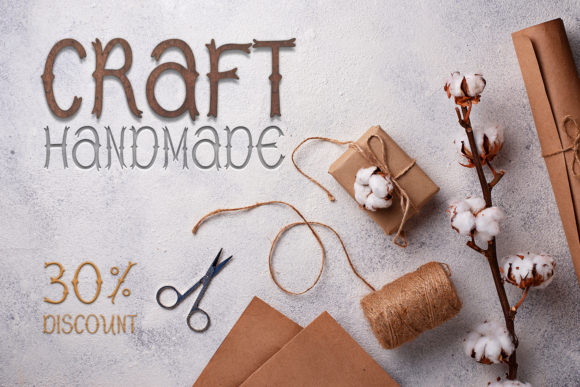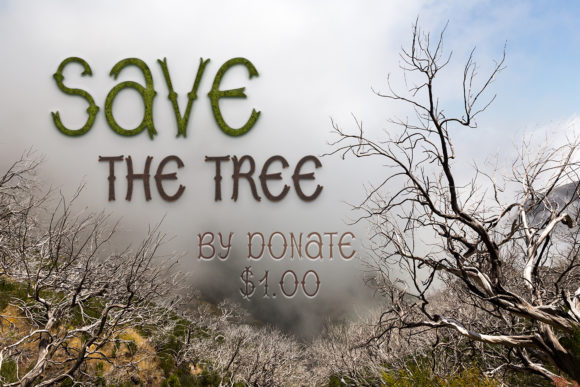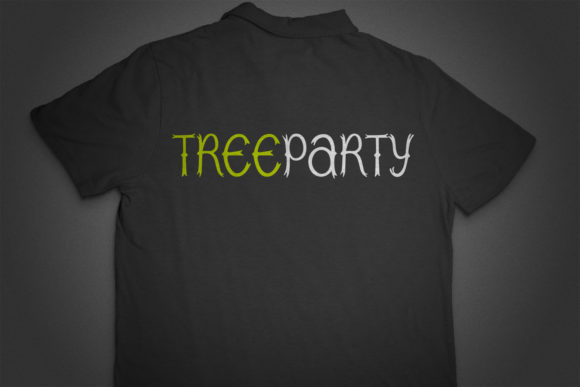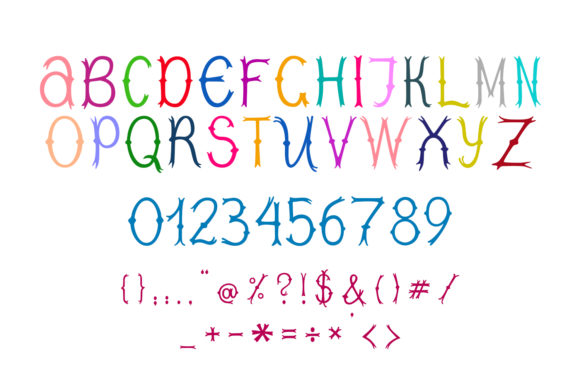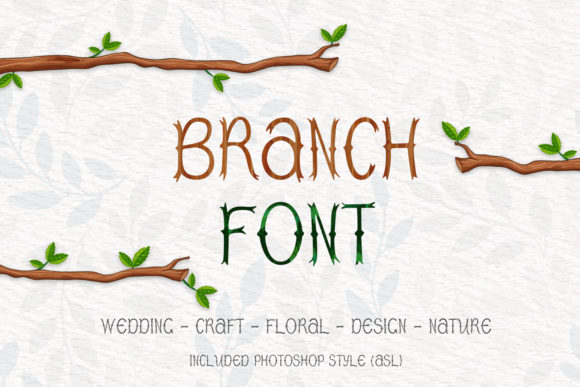
Introducing Branch Font: A Fun Display Font Inspired by Nature
Are you looking for a font that captures the essence of the great outdoors? Look no further than Branch Font, a fun and playful display font that’s perfect for any project that needs a touch of natural charm. Built upon the theme of wood, Branch Font is a unique and eye-catching typeface that’s sure to make your designs stand out.
The Inspiration Behind Branch Font
Branch Font is a font that’s deeply rooted in nature. Its design is inspired by the rustic charm of wooden branches, with each letter carefully crafted to evoke the feeling of a tree’s twisted limbs. The result is a font that’s both whimsical and earthy, with a character that’s perfect for any project that needs a touch of the great outdoors.
What Makes Branch Font So Versatile?
One of the things that sets Branch Font apart is its versatility. While it’s certainly well-suited to projects that are directly related to nature, such as environmental campaigns or outdoor gear branding, it’s also a great choice for any design that needs a touch of playfulness and whimsy. Whether you’re working on a logo, a poster, or a website, Branch Font is a great choice for adding a bit of personality to your design.
Key Features of Branch Font
- Unique and eye-catching design: Branch Font’s wooden branch-inspired design is unlike anything you’ve seen before. Its twisted, curved lines are sure to grab attention and add a touch of personality to your designs.
- Highly legible: Despite its unique design, Branch Font is highly legible, even at small sizes. This makes it a great choice for use in a variety of applications, from logos and headings to body text.
- Support for multiple languages: Branch Font supports multiple languages, making it a great choice for designers who work with clients from around the world.
Use Cases for Branch Font
So what kinds of projects is Branch Font best suited to? Here are a few ideas to get you started:
- Environmental campaigns: Branch Font’s natural, earthy vibe makes it a great choice for environmental campaigns, conservation organizations, and eco-friendly brands.
- Outdoor gear branding: If you’re working on a brand identity for an outdoor gear company, Branch Font is a great choice. Its rugged, natural design is perfect for conveying a sense of adventure and exploration.
- Wedding and event invitations: Branch Font’s playful, whimsical design makes it a great choice for wedding and event invitations that need a touch of personality.
- Packaging design: Branch Font’s unique design makes it a great choice for packaging design, particularly for products that are sold in outdoor or natural health food stores.
Tips for Using Branch Font Effectively
Here are a few tips for using Branch Font effectively in your designs:
- Use it sparingly: Branch Font is a bold, attention-grabbing font that’s best used sparingly. Try using it for headings or titles, and pairing it with a simpler font for body text.
- Experiment with colors: Branch Font looks great in a variety of colors, from earthy browns and greens to bright, bold hues. Experiment with different colors to find the one that works best for your design.
- Pair it with natural imagery: Branch Font’s natural design makes it a great choice for pairing with natural imagery, such as photos of trees, flowers, or wildlife.
Branch Font is a unique and eye-catching display font that’s perfect for any project that needs a touch of natural charm. Its versatile design makes it suitable for a wide range of applications, from environmental campaigns to wedding invitations. With its highly legible design and support for multiple languages, Branch Font is a great choice for designers who want to add a bit of personality to their designs.